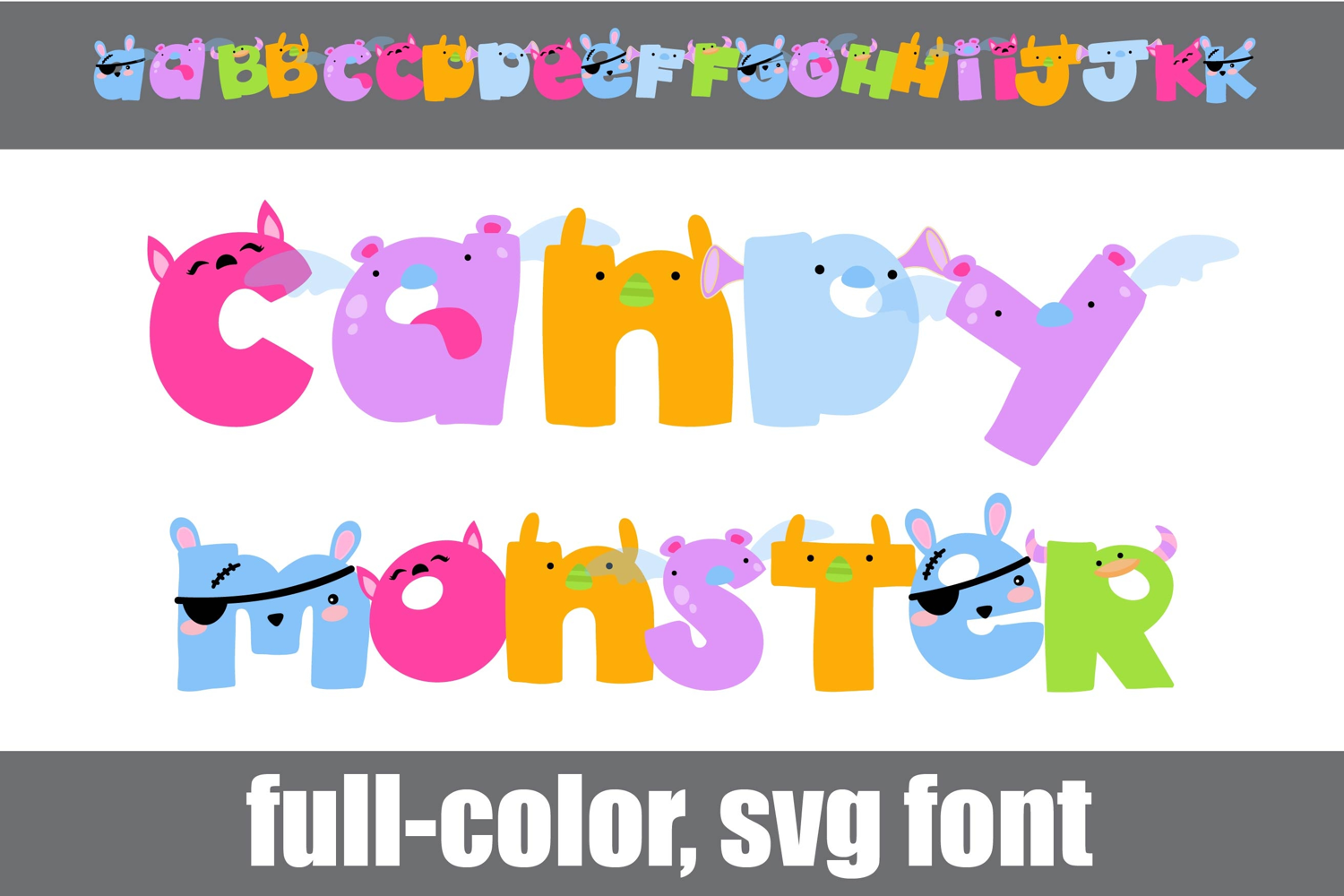
Candy Monster Color Font
This full-color font features bright and fun monsters There is an alt case of each letter with a different color combination.